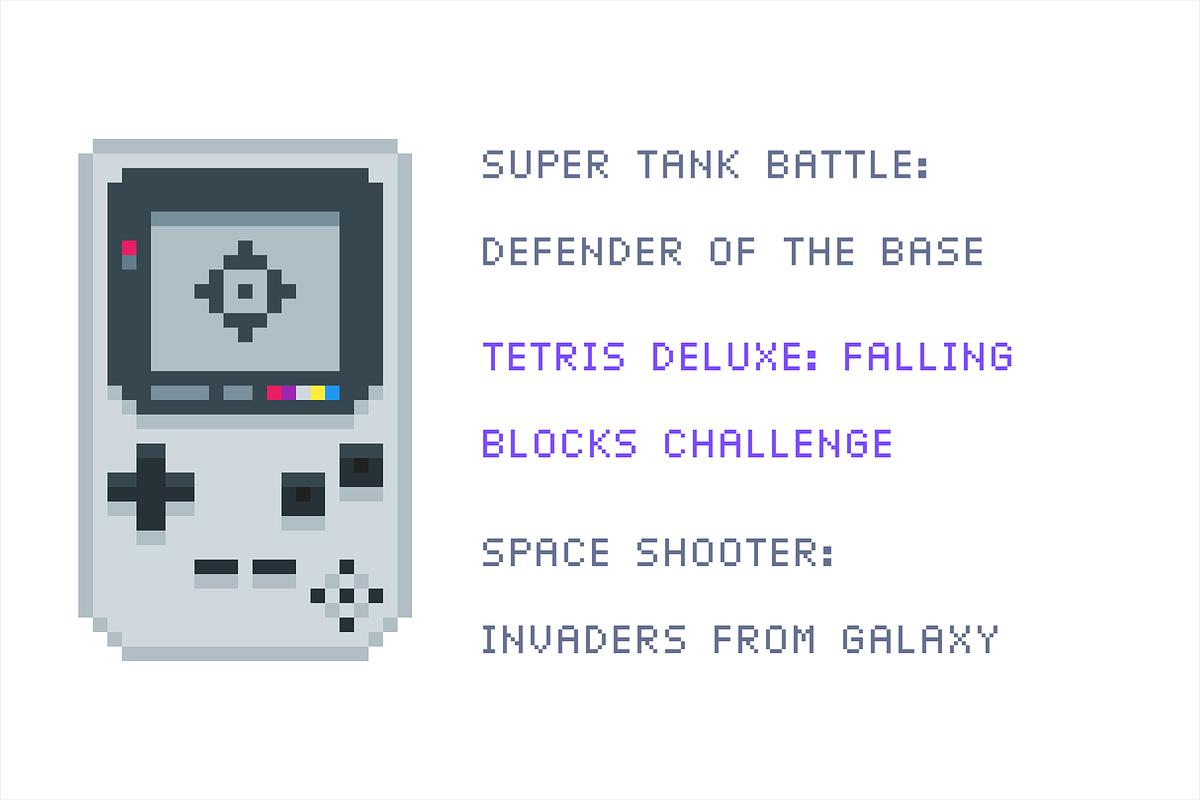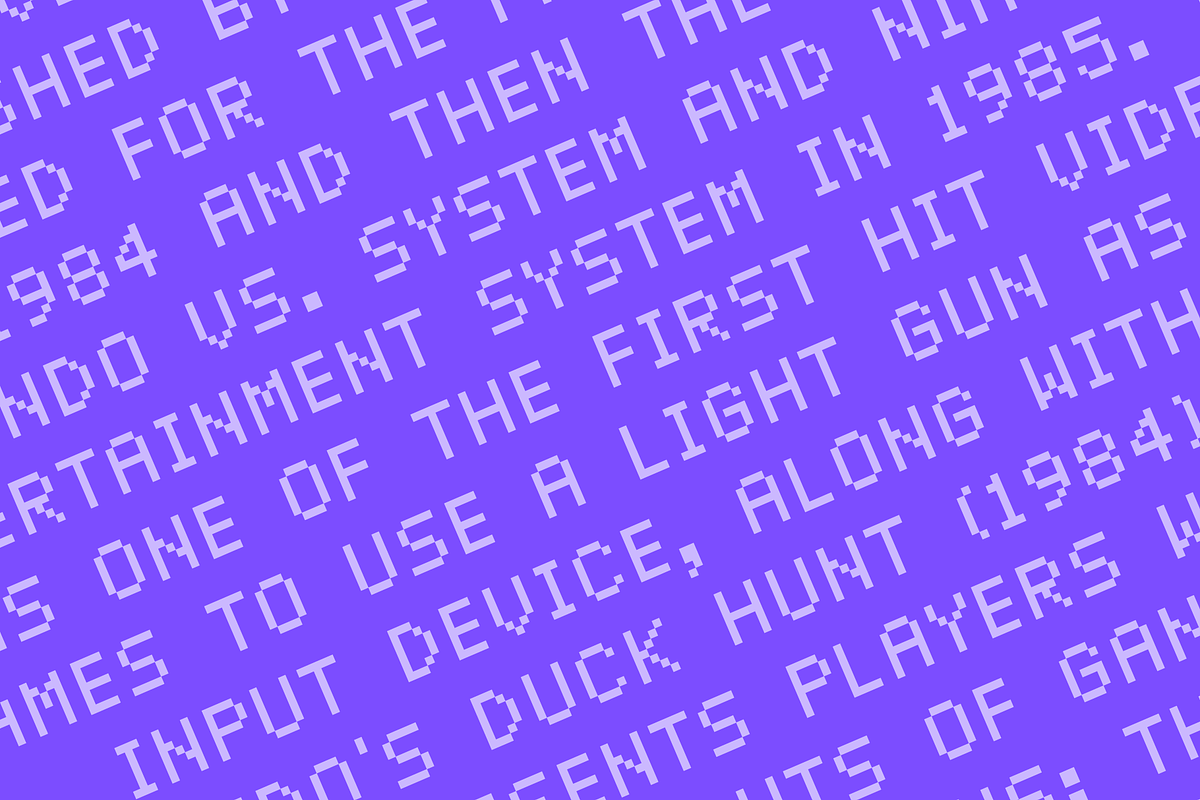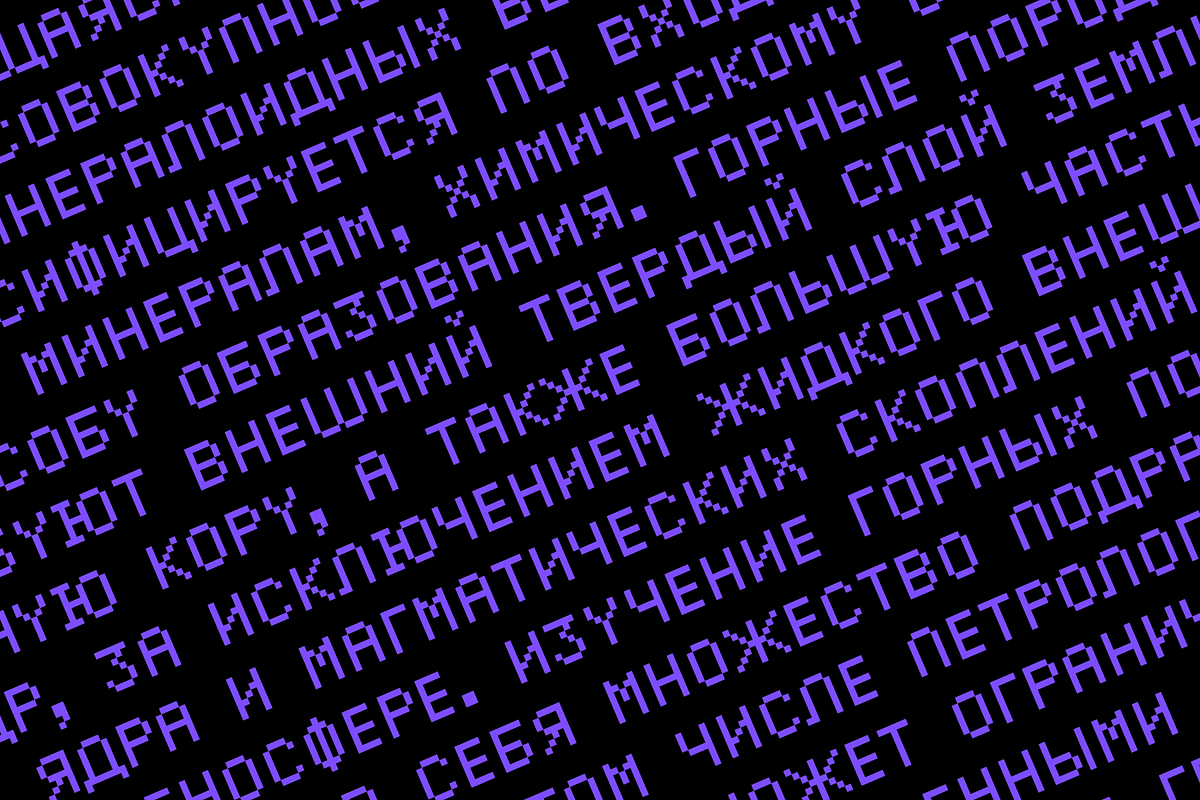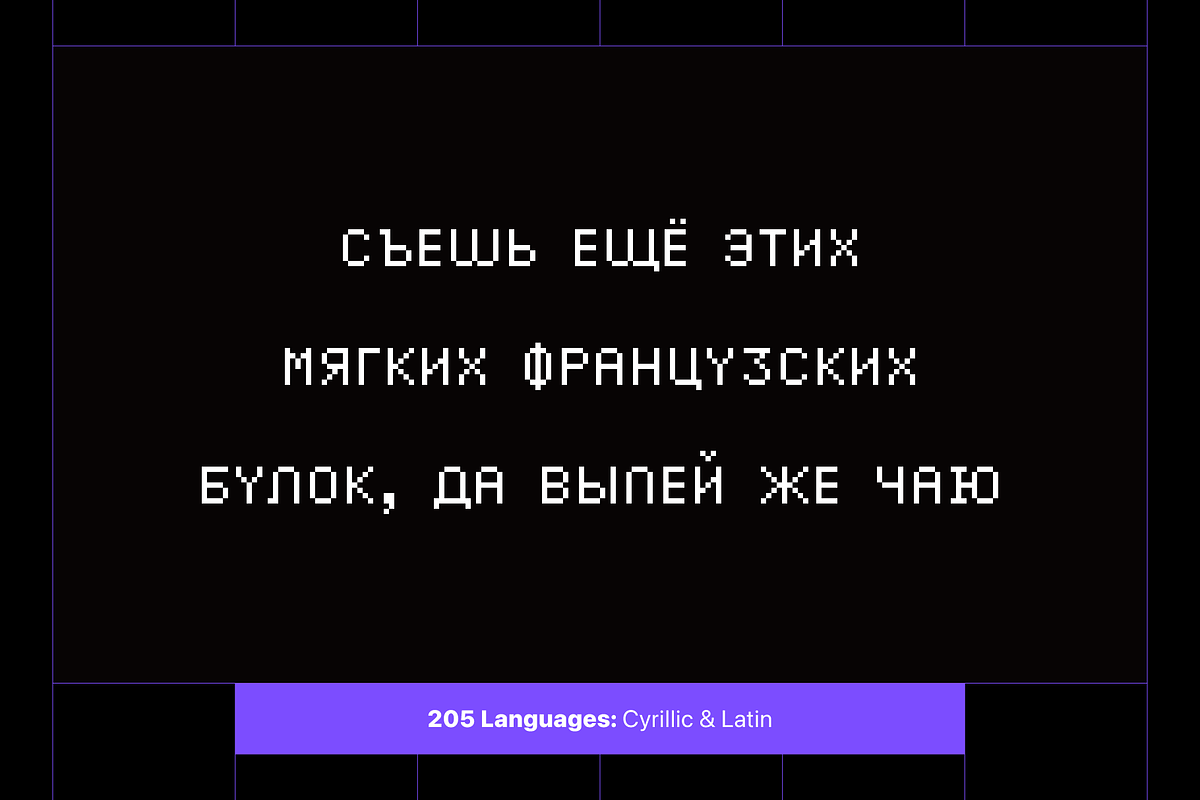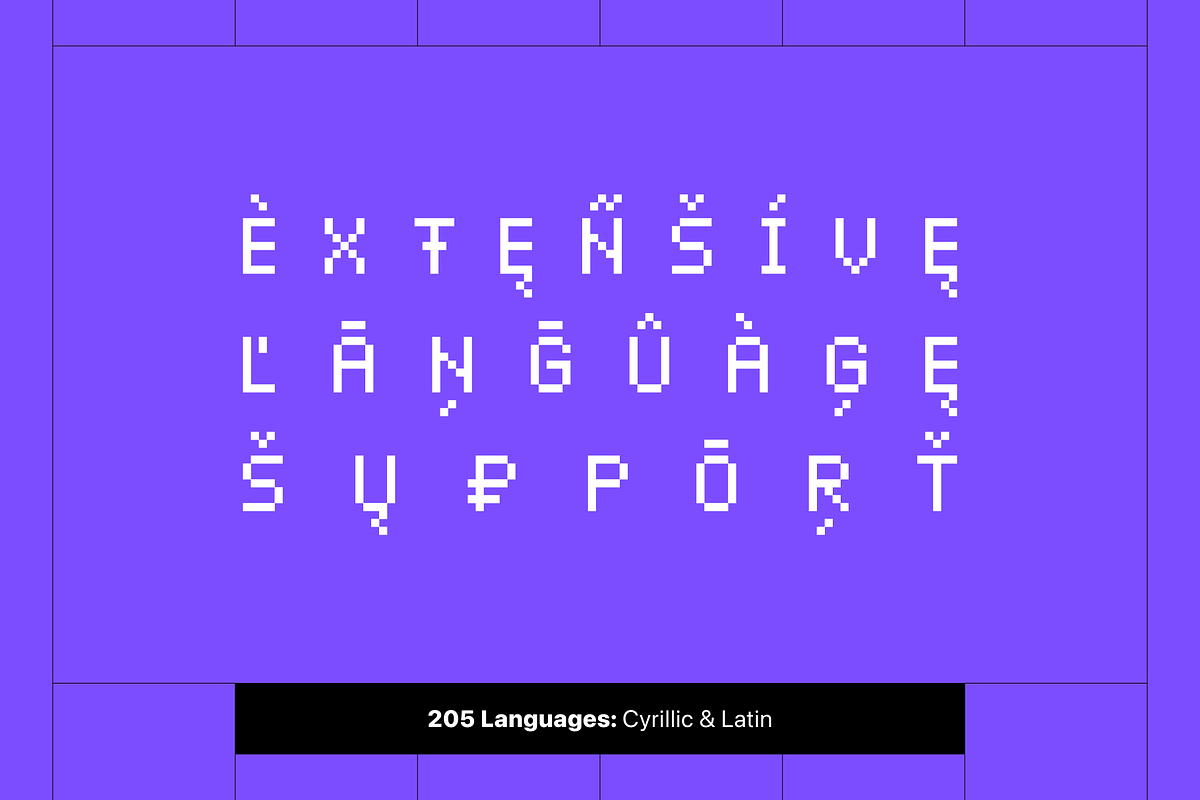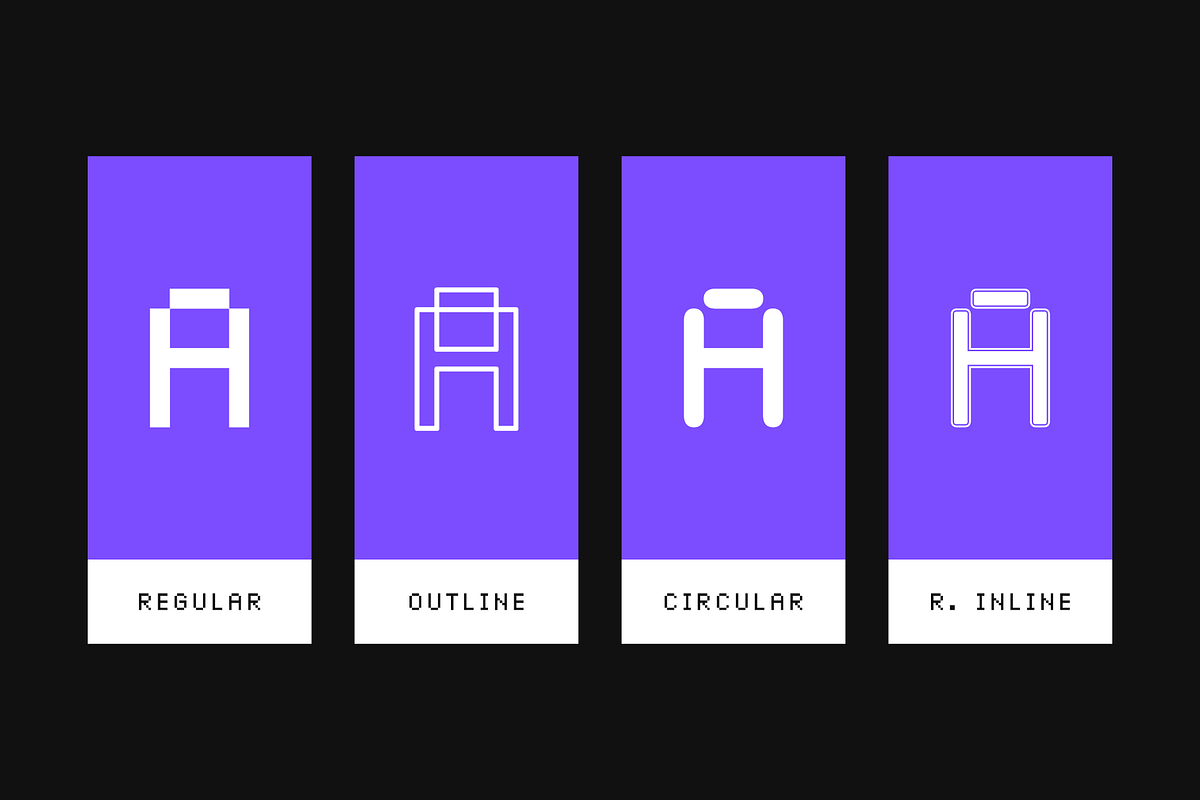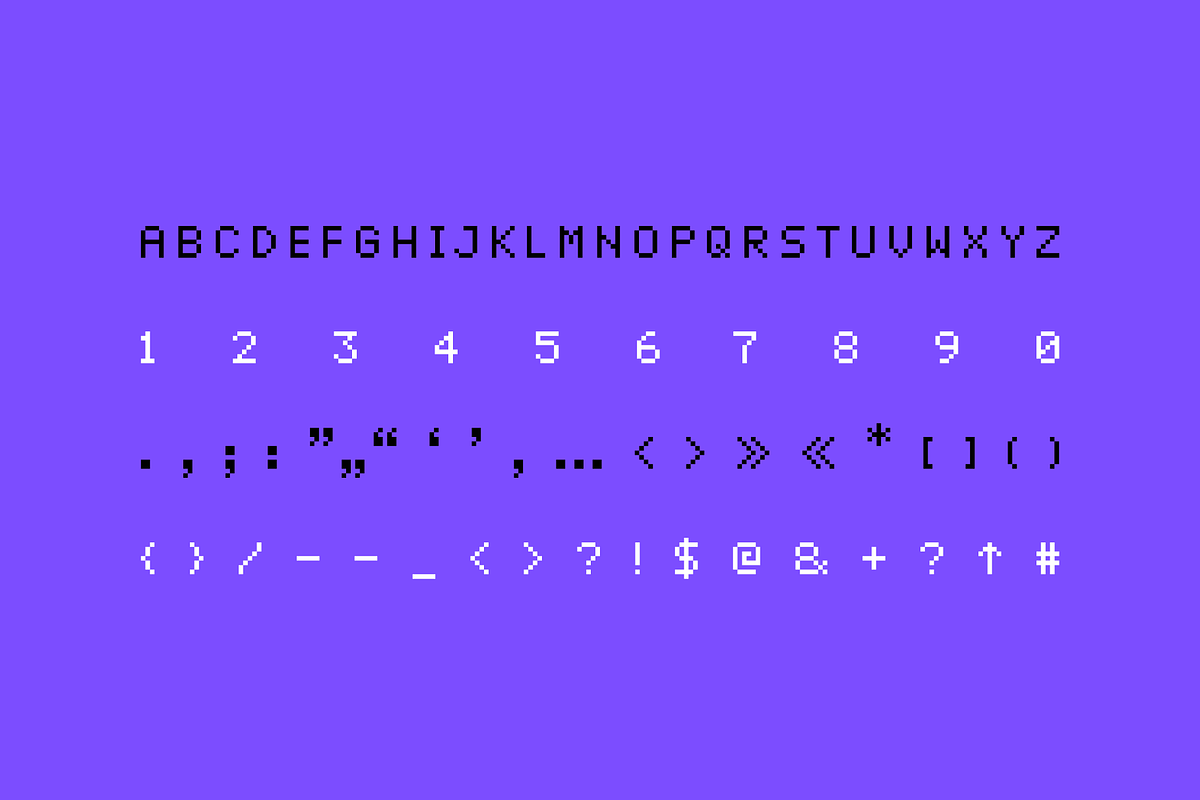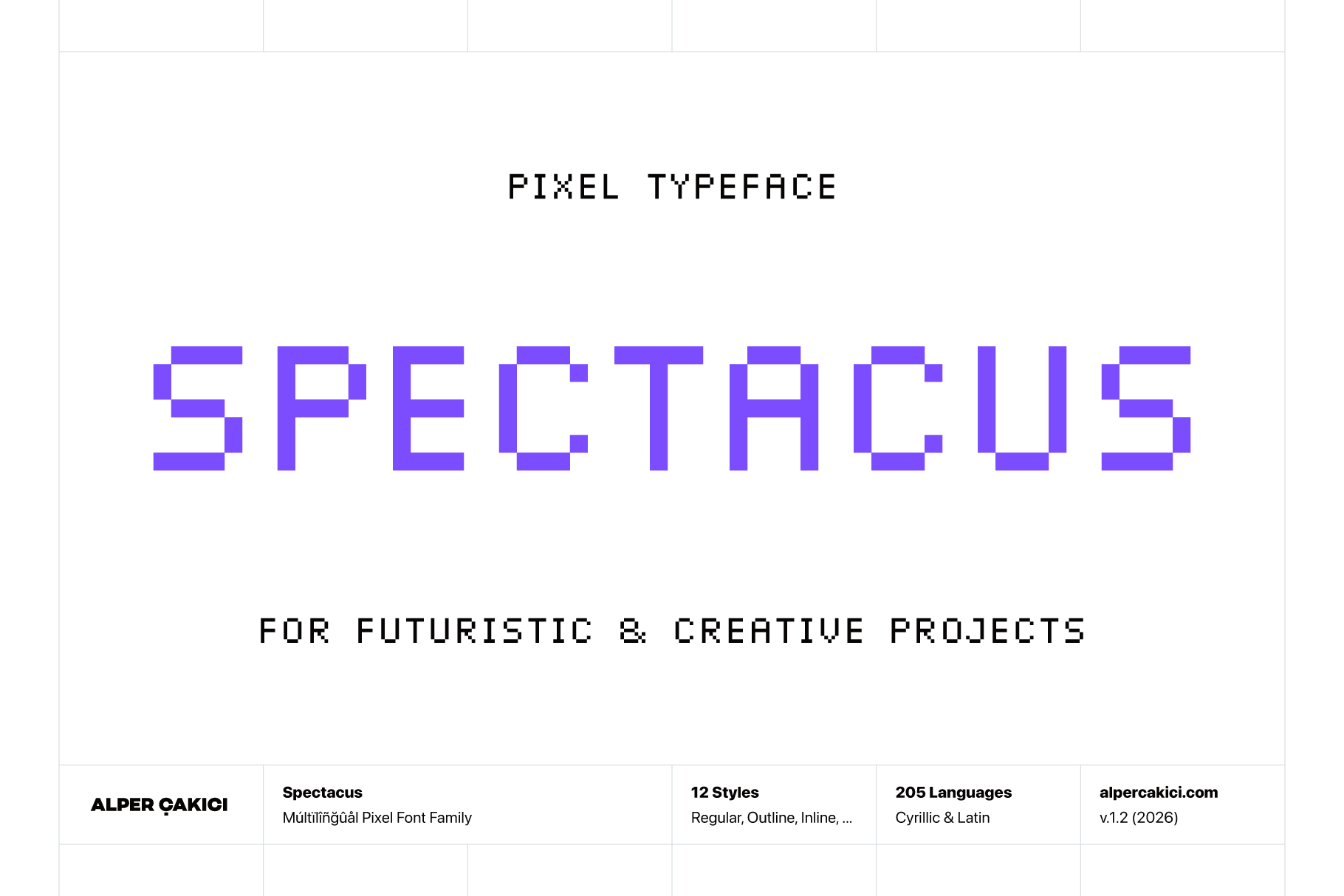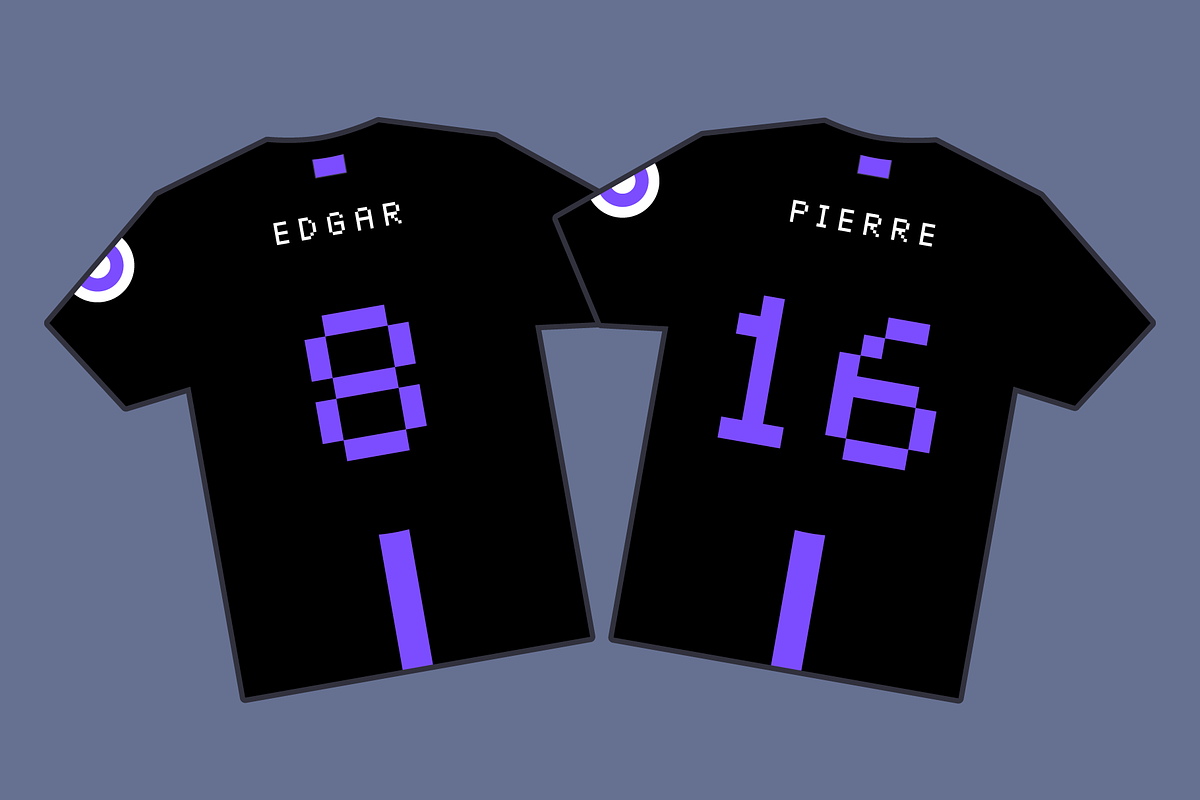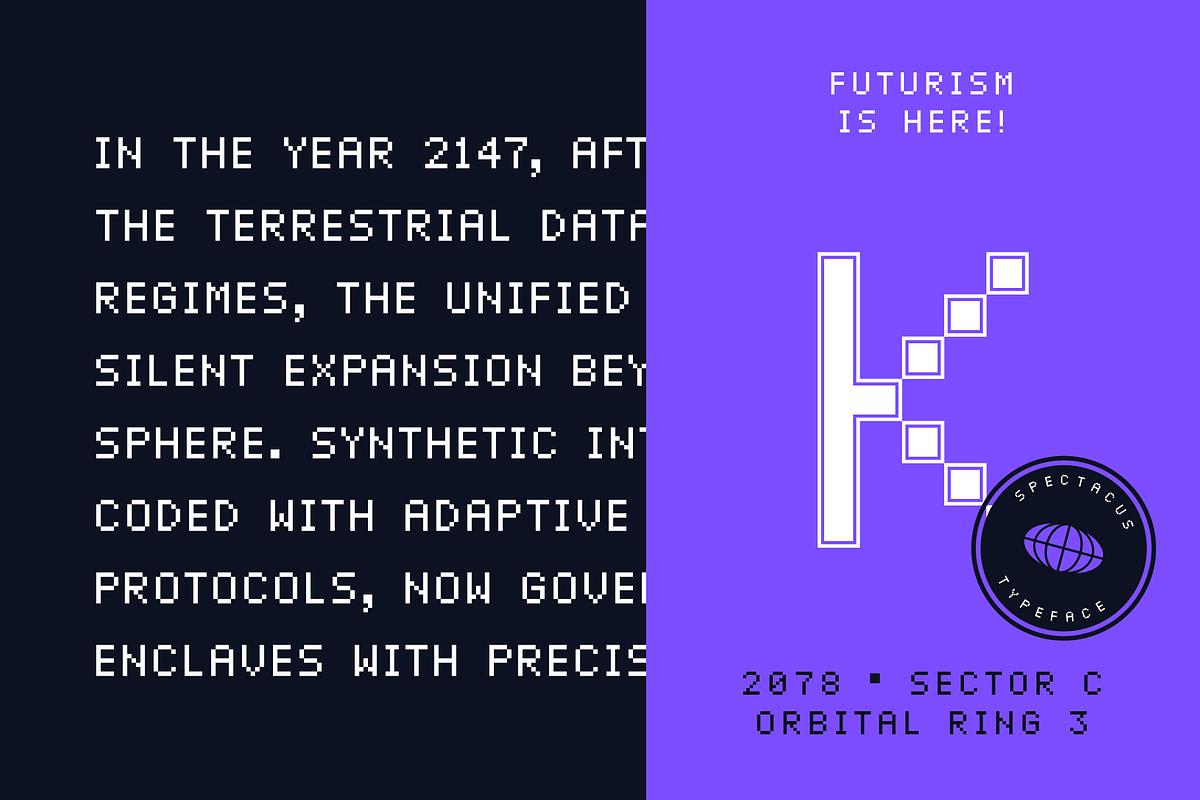
Spectacus Pixel Typeface (12 Fonts)
Spectacus is a versatile pixel display typeface built on a precise 100-point grid system, combining the nostalgic spirit of classic bitmap typography with a refined contemporary structure. Designed for impactful headlines, logos, posters, branding, packaging, gaming projects, digital artwork, and retro-inspired visual identities, Spectacus delivers a distinctive geometric appearance while maintaining excellent legibility.
Every character is carefully constructed from a consistent modular grid, creating a strong visual rhythm and a cohesive typographic texture across both Latin and Cyrillic scripts. The design balances sharp pixel precision with playful stylistic variations, allowing designers to explore multiple creative directions without leaving the type family.
The family includes twelve styles: Regular, Outline, Inline, Shadow, Circular, Circular Outline, Circular Inline, Circular Shadow, Rounded, Rounded Outline, Rounded Inline, and Rounded Shadow. Each style introduces a unique interpretation of the underlying pixel framework, ranging from crisp and technical to soft and approachable. The Circular and Rounded variants add a distinctive character by smoothing the rigid geometry of traditional pixel forms, while the Outline, Inline, and Shadow styles provide additional depth and dimensionality for display applications.
With 517 glyphs and extensive Latin and Cyrillic language support, Spectacus is suitable for multilingual branding and international design projects. The typeface retains the charm of retro digital aesthetics while offering the flexibility and functionality expected from modern professional typography.
Whether used for arcade-inspired graphics, futuristic interfaces, creative branding, editorial headlines, packaging, merchandise, or experimental design work, Spectacus brings a bold pixel personality and a highly recognizable visual presence to any project.